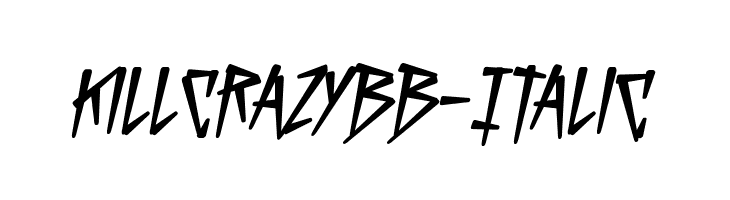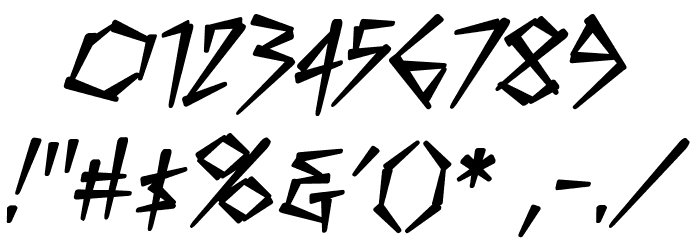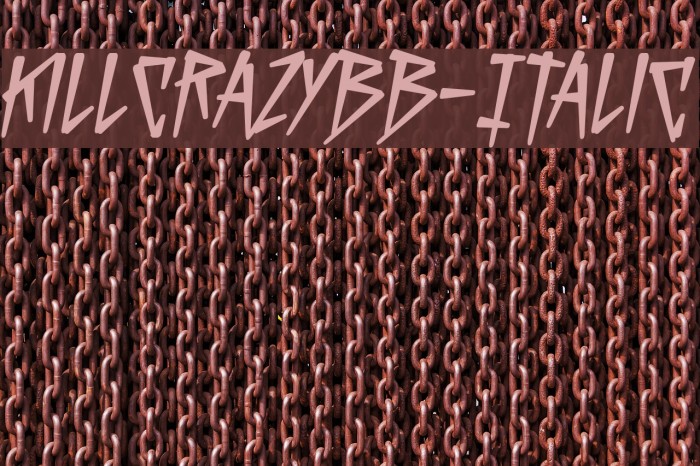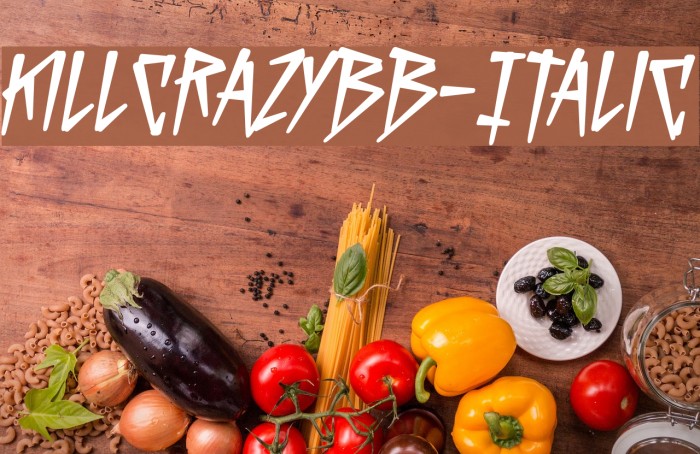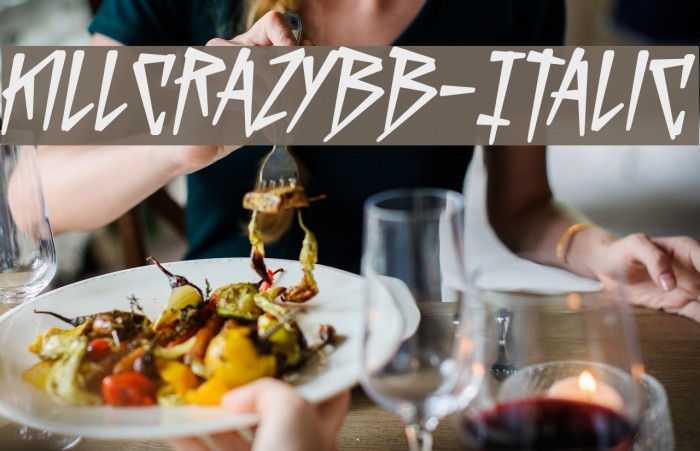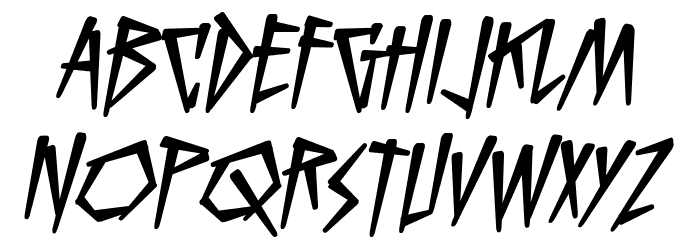
KillCrazyBB-Italic Font
This font features a bold and dynamic style with sharp, angular lines and a distinct slant, giving it a sense of motion and energy. The characters are designed with a unique, edgy flair that makes them stand out, ideal for creating a strong visual impact. The uppercase and lowercase letters maintain a consistent style, with exaggerated angles and a slightly condensed form. The numbers and special characters follow the same design principles, ensuring a cohesive look across all elements.
A bold, angular, and slanted font with a dynamic and edgy style.
• Proposed Projects: Perfect for projects that require a bold statement, such as posters, album covers, or branding for edgy and modern products.